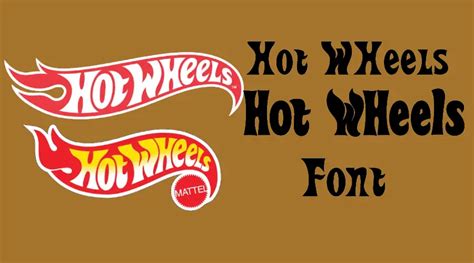
Hot Wheel Font. Web heavy heap is a groovy psychedelic typeface on fire! The font is available in.
Web heavy heap is a groovy psychedelic typeface on fire! The font is available in. Web the logo of hot wheels was designed using a font very similar to heavy heap designed by typodermic fonts.
Web heavy heap is a groovy psychedelic typeface on fire! Web the logo of hot wheels was designed using a font very similar to heavy heap designed by typodermic fonts. Web heavy heap is a groovy psychedelic typeface on fire! The font is available in.